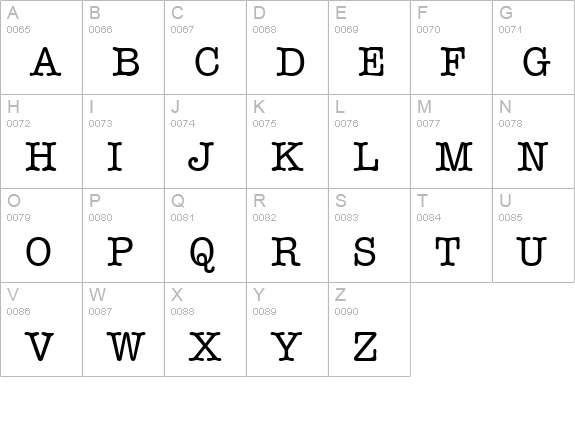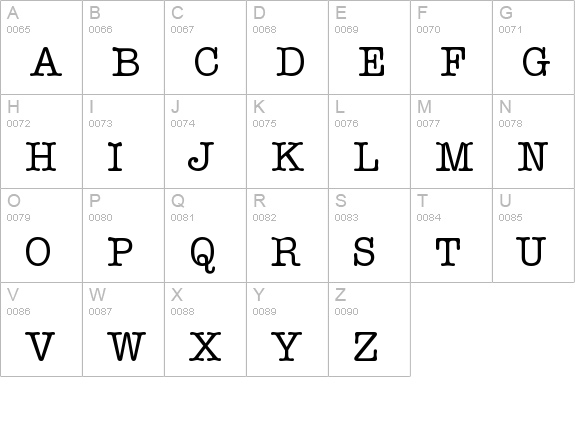
TR Memorandum Plain Font Details
TR Memorandum Plain font is a classic and versatile typeface that exudes elegance and professionalism. With its clean lines and balanced proportions, this font is perfect for a wide range of design projects, from business documents to invitations. Its timeless appeal makes it a reliable choice for any designer looking to convey a sense of sophistication. The best part about TR Memorandum Plain font is that it is available for free download at FontsMarket.com. This means you can easily access this high-quality font without any cost, allowing you to enhance your projects with a touch of sophistication without breaking the bank. Don't miss out on the opportunity to add this timeless font to your collection!